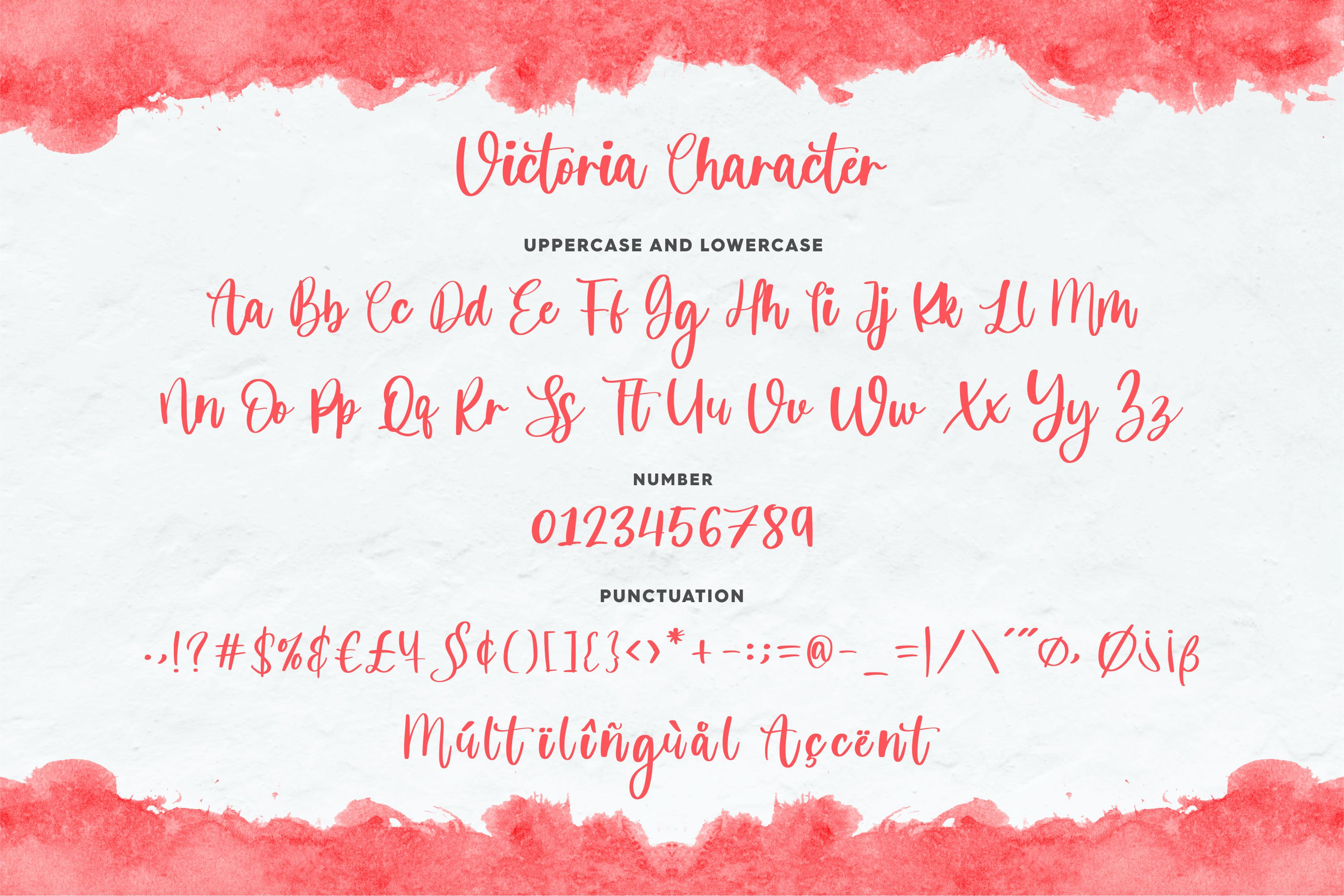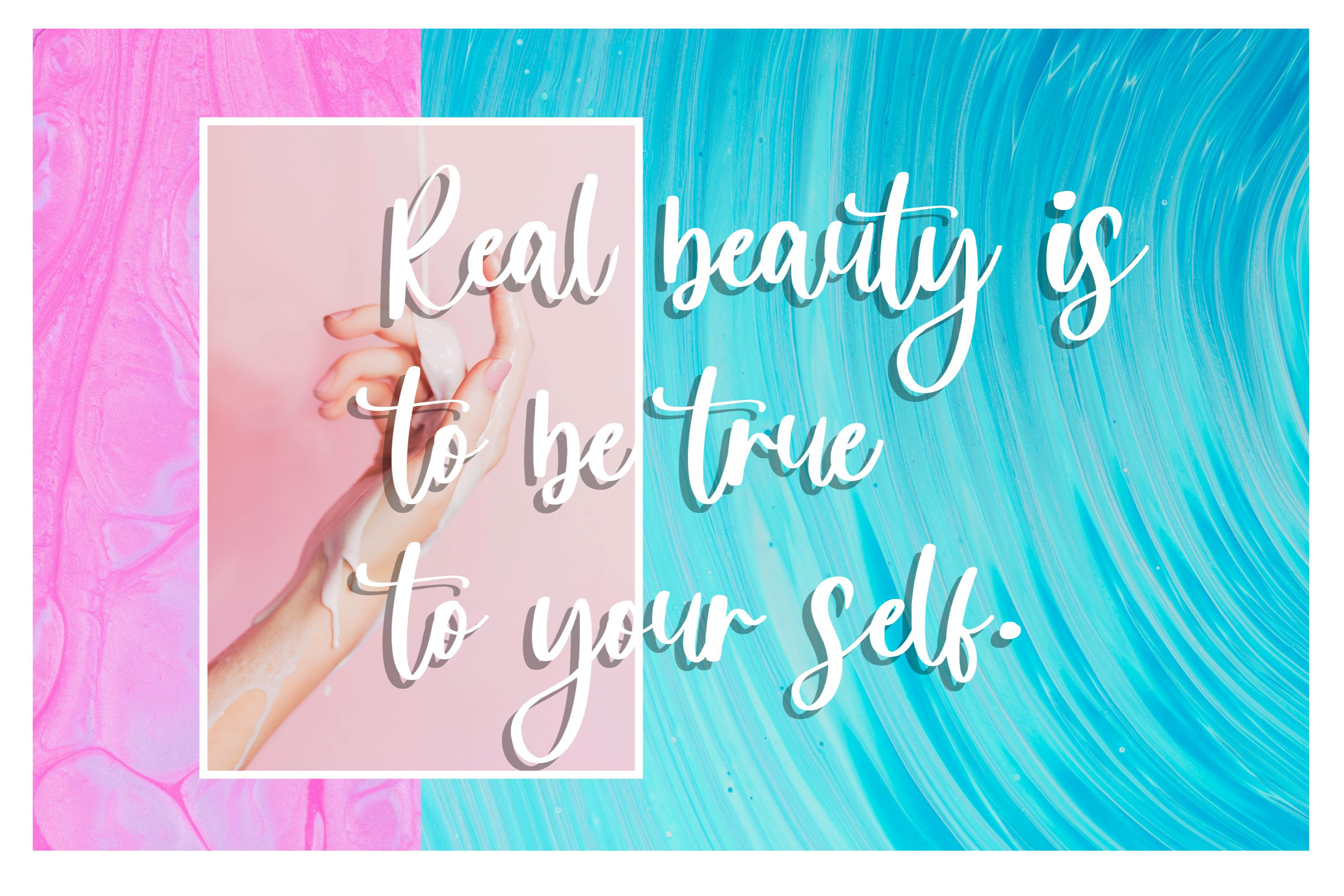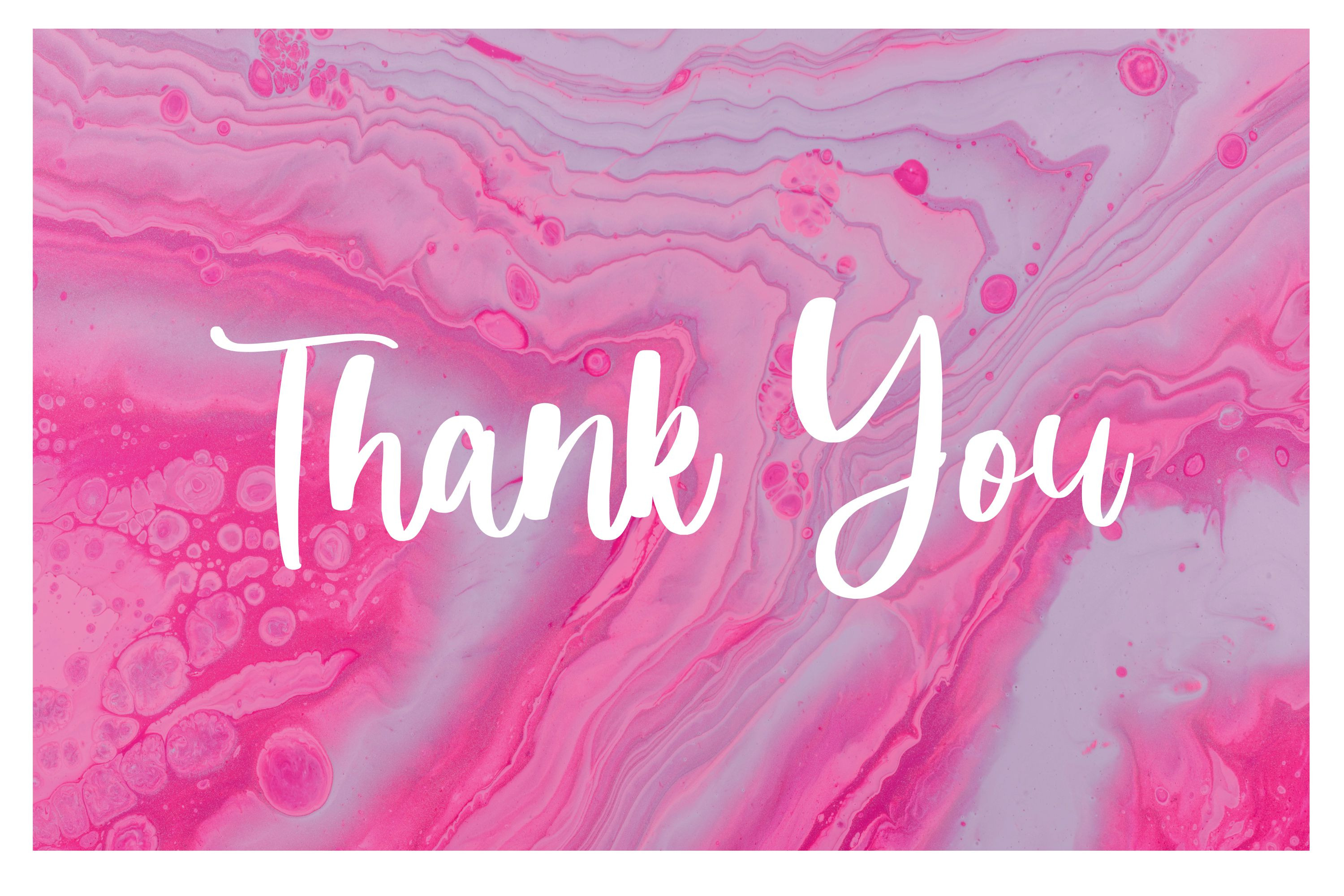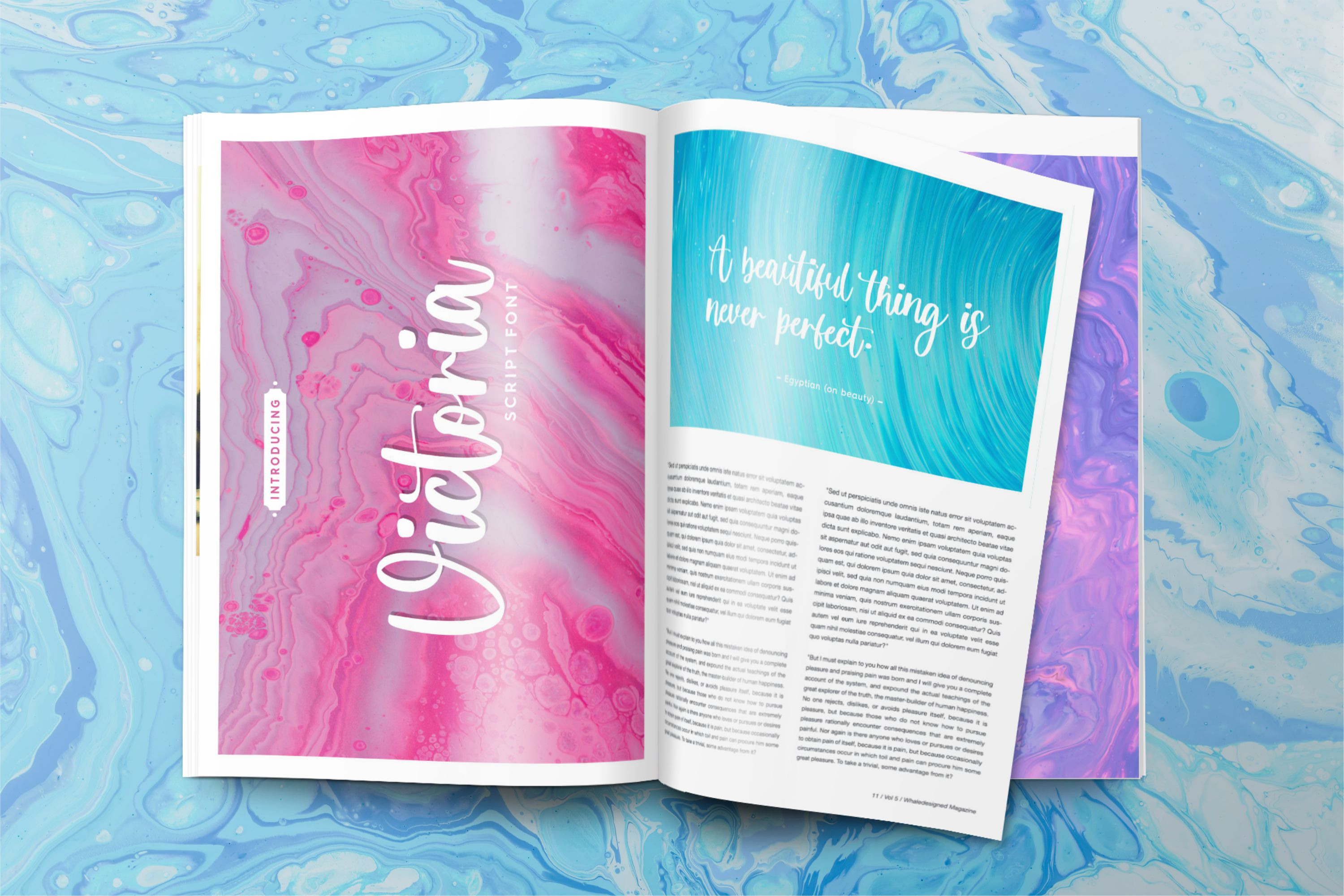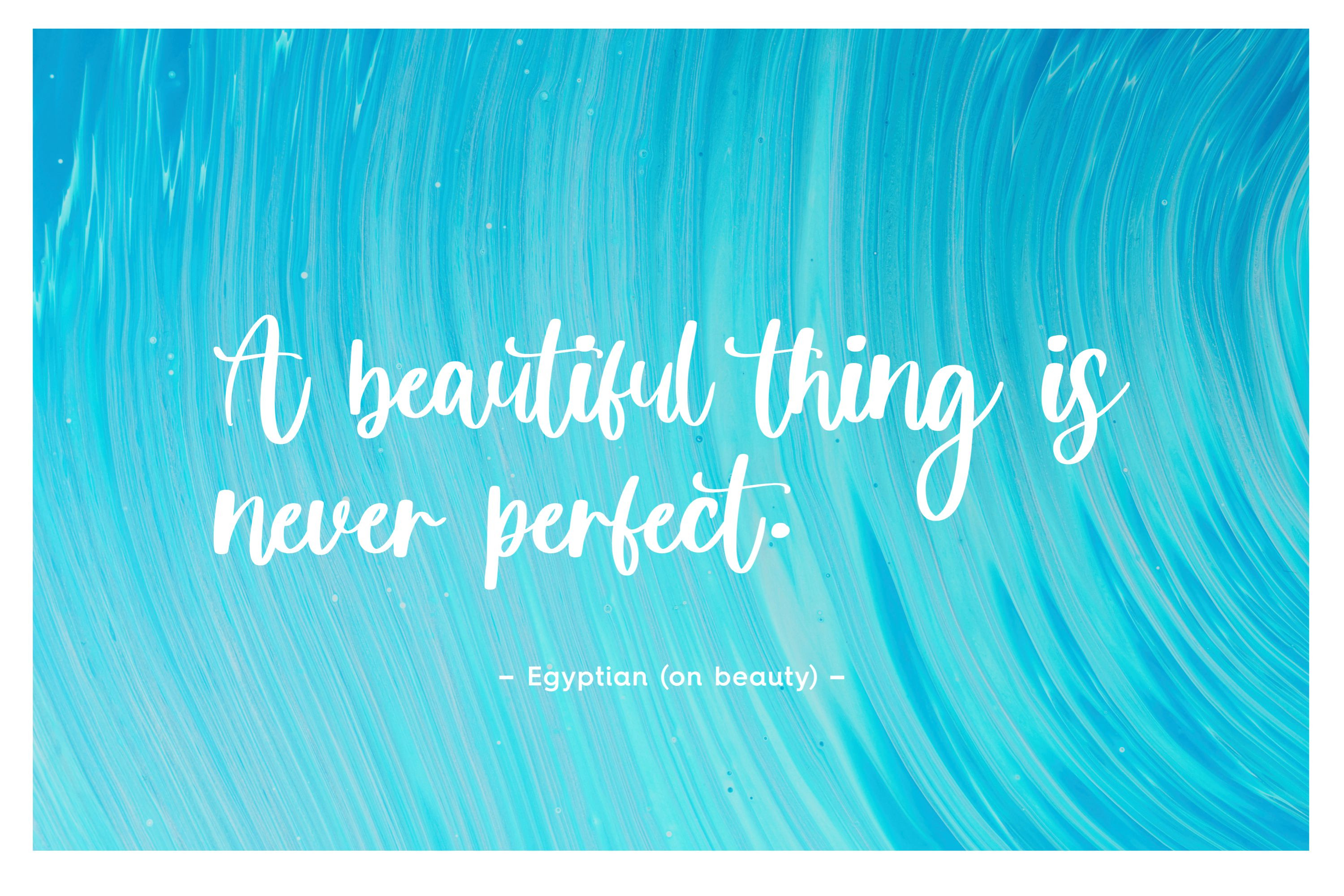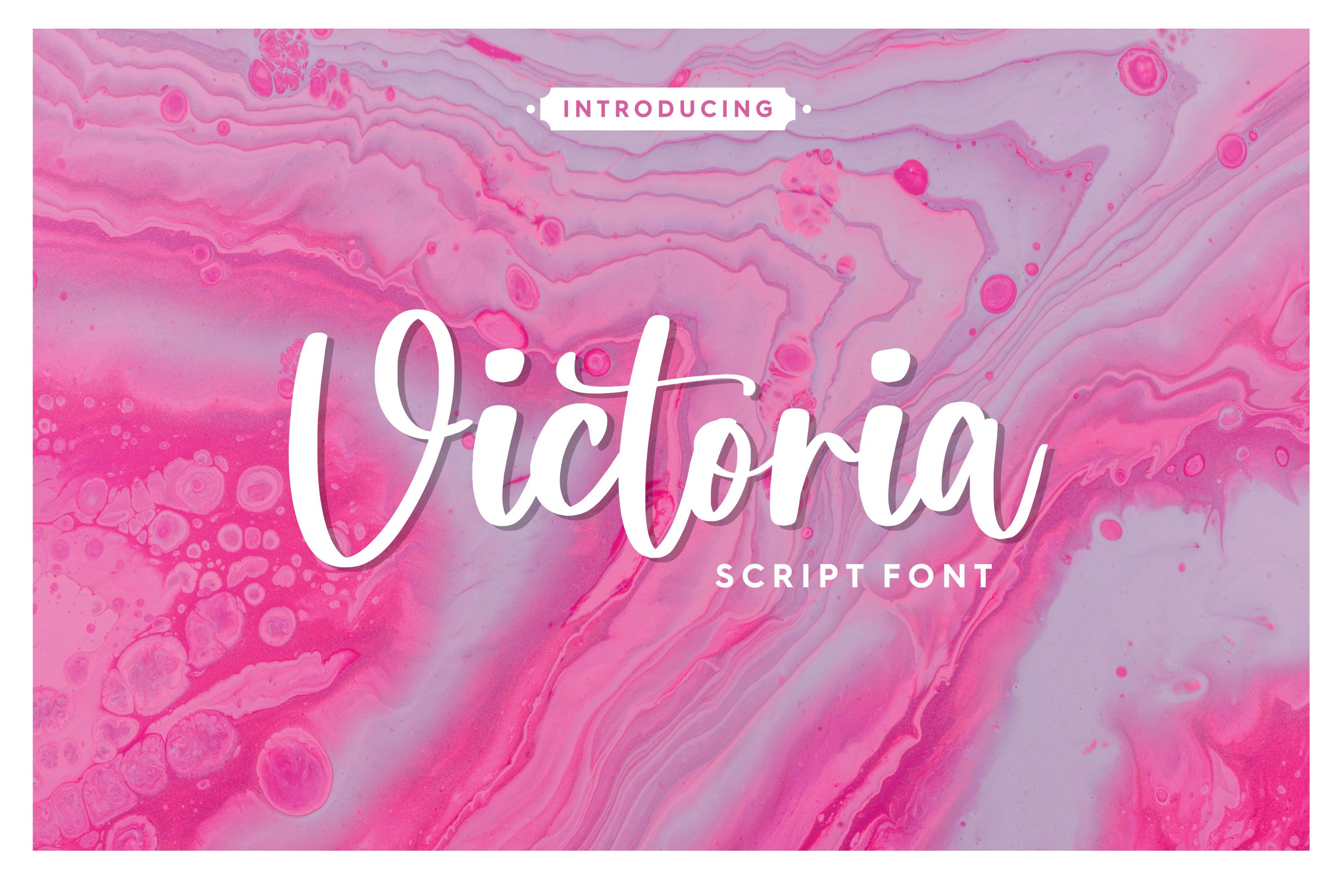
Proudly Present, Victoria Font Victoria embodies fun, quirkiness and authenticity. This enchanting handwritten font will turn any creative idea into a true standout. This font includes - TTF, OTF and WOFF - also multilingual support Enjoy the font, feel free to comment or feedback, send me PM or email. Thank you! | Victoria - Script Font | Balpirick Studio